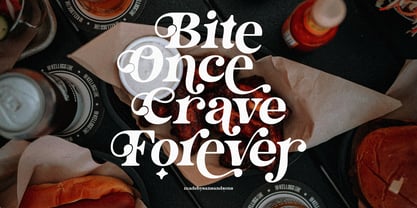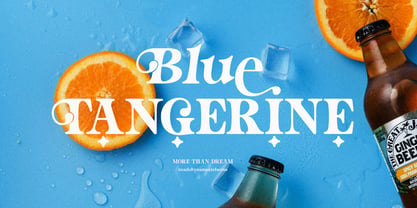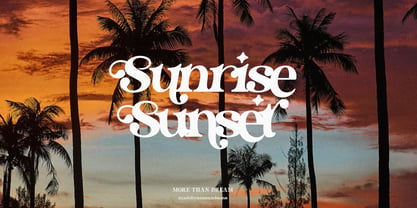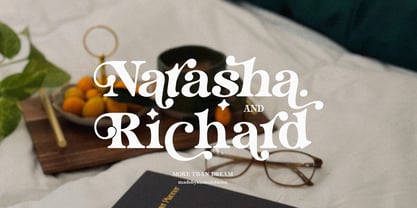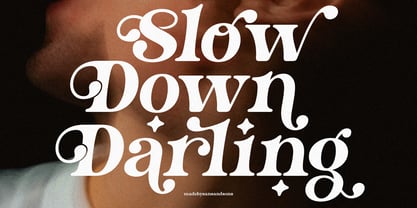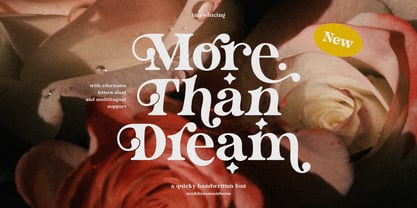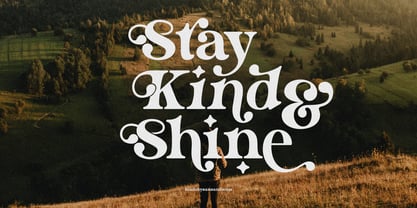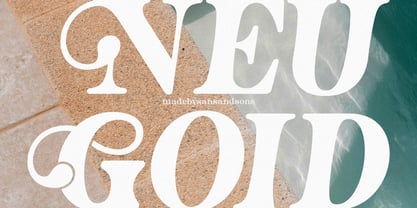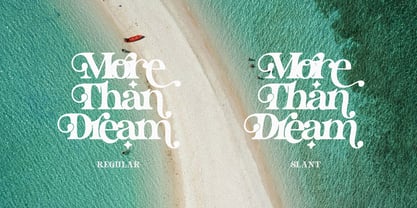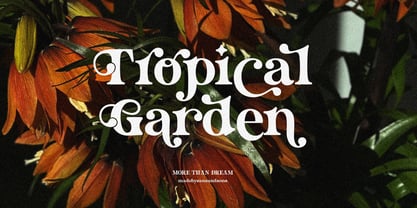
More Than Dream
by Sans And Sons
The More Than Dream Font Family was designed by Angga Suwista and published by Sans And Sons. More Than Dream contains 2 styles and family package options. More about this family
Say hello to More Than Dream, a retro-modern serif font designed to bring bold personality and timeless style to your creative work.
With its bold curves, soft rounded edges, and elegant alternates, this font strikes the perfect balance between nostalgic charm and contemporary flair. It’s versatile, expressive, and made to shine — whether you’re designing logos, packaging, posters, or editorial layouts.
– Retro-inspired serif with a modern twist
– Rounded, bold shapes with stylish alternates
Bring your dream designs to life with a font that’s more than just prettyit’s More Than Dream.